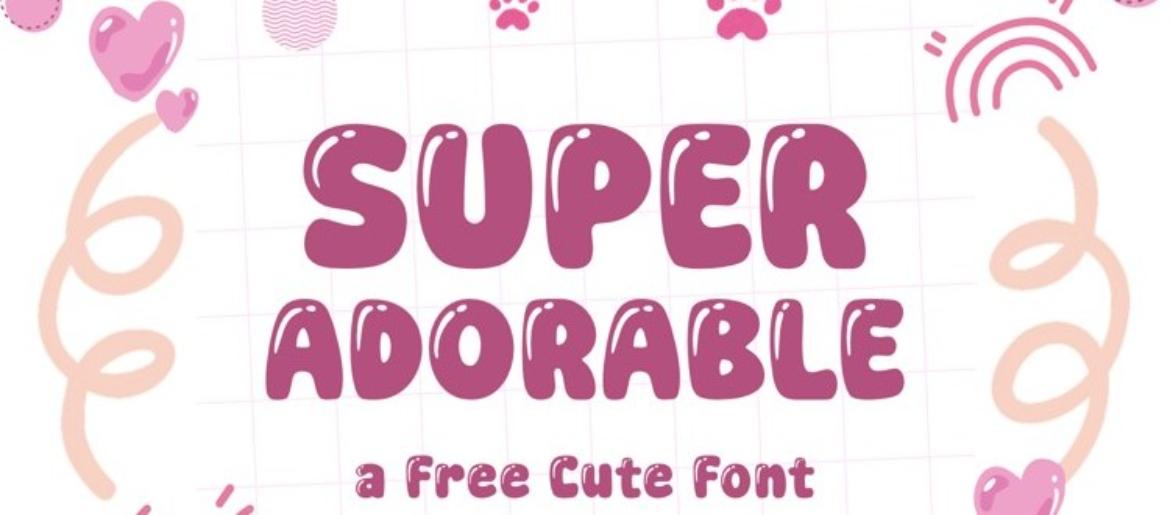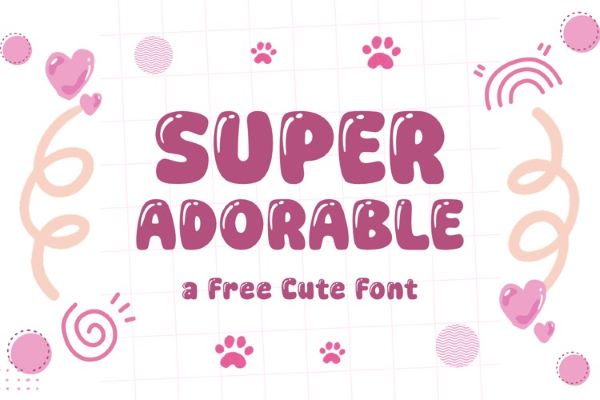
Super Adorable Font
Super Adorable Font is a cute display typeface with soft, rounded letterforms and a charming personality. Its playful style makes it perfect for kids’ designs, stickers, planners, social media graphics, logos, and cheerful projects that need a sweet and friendly look.
➤ Font Name: Super Adorable
➤ Designer: All Super Font
➤ Style: Bubble